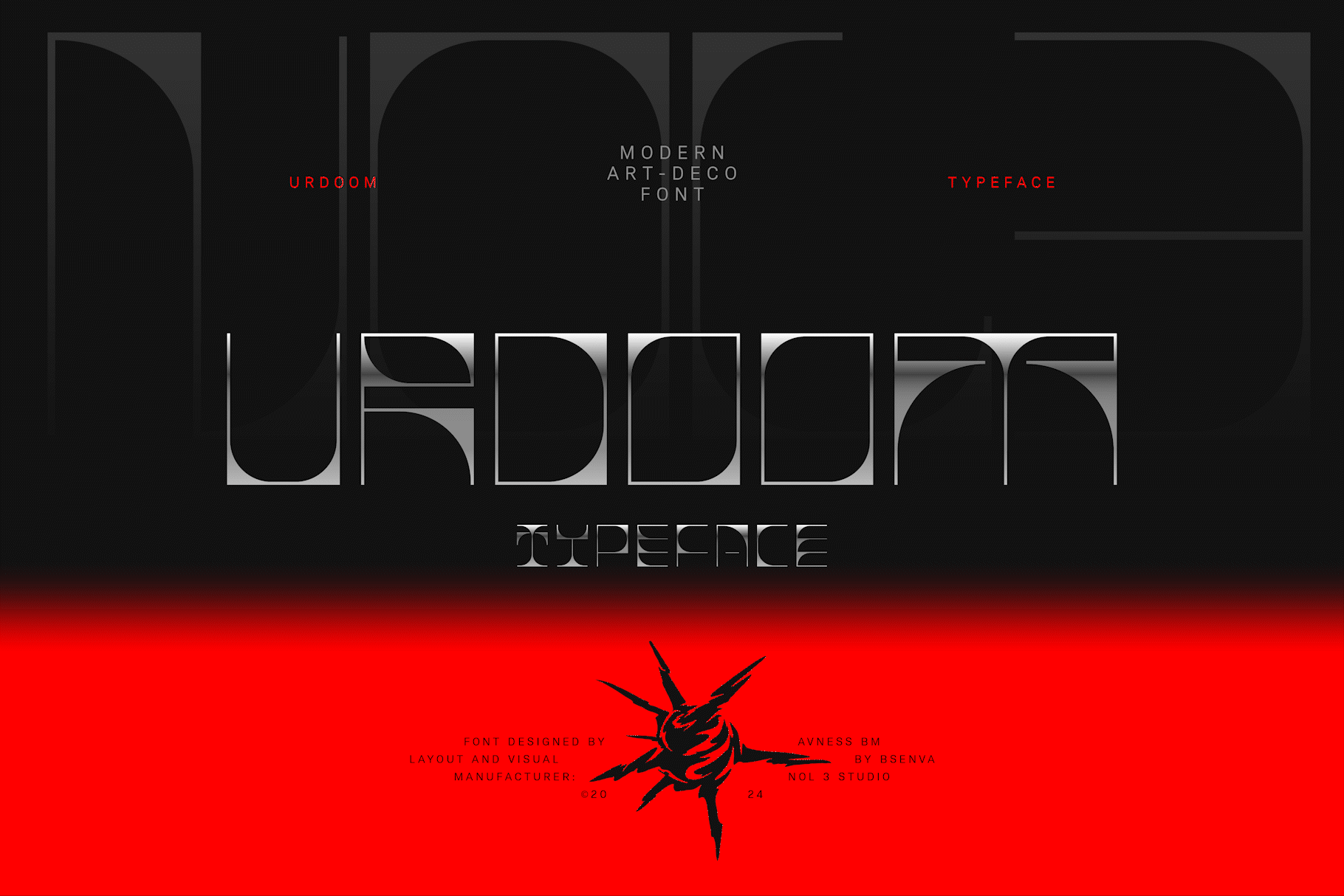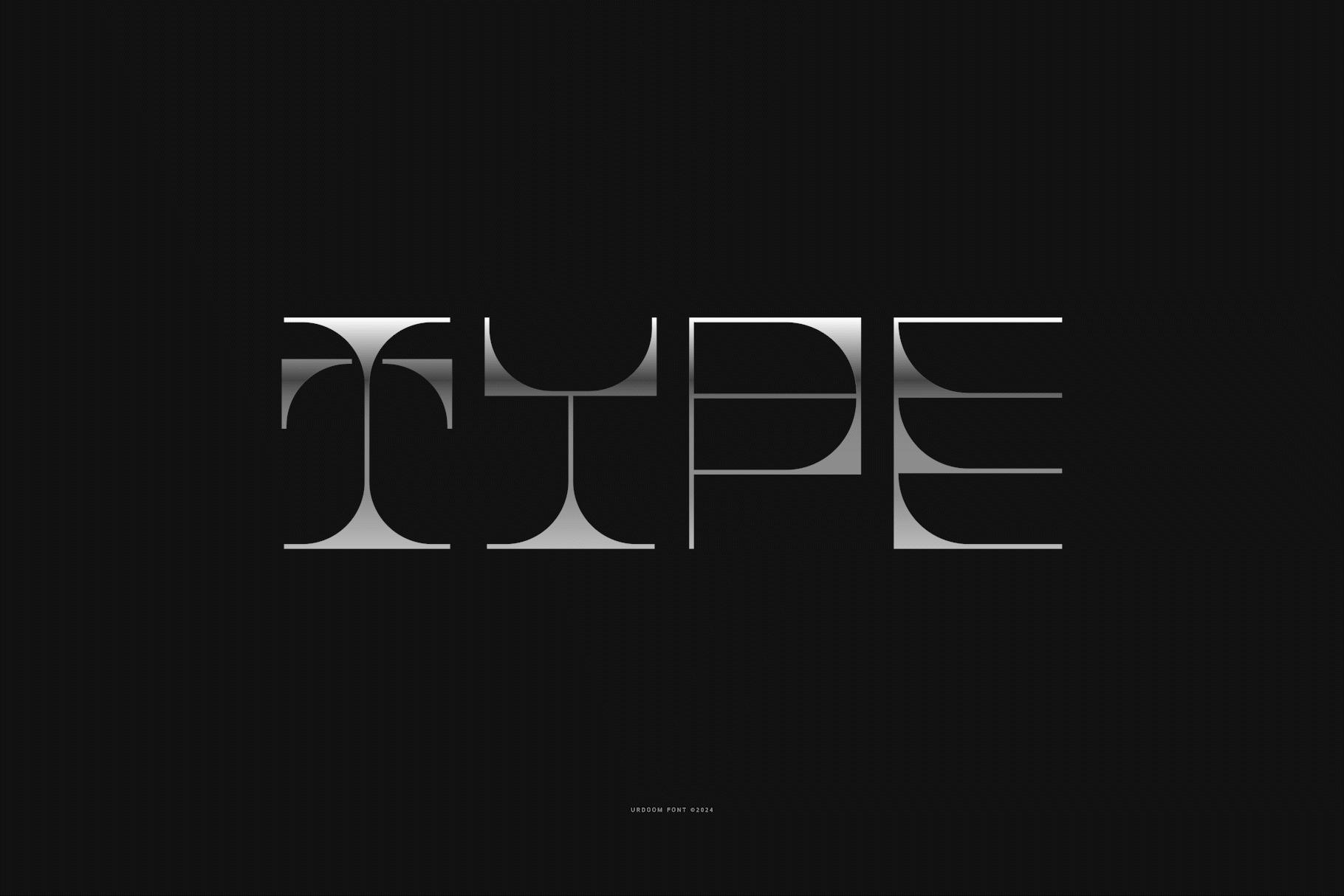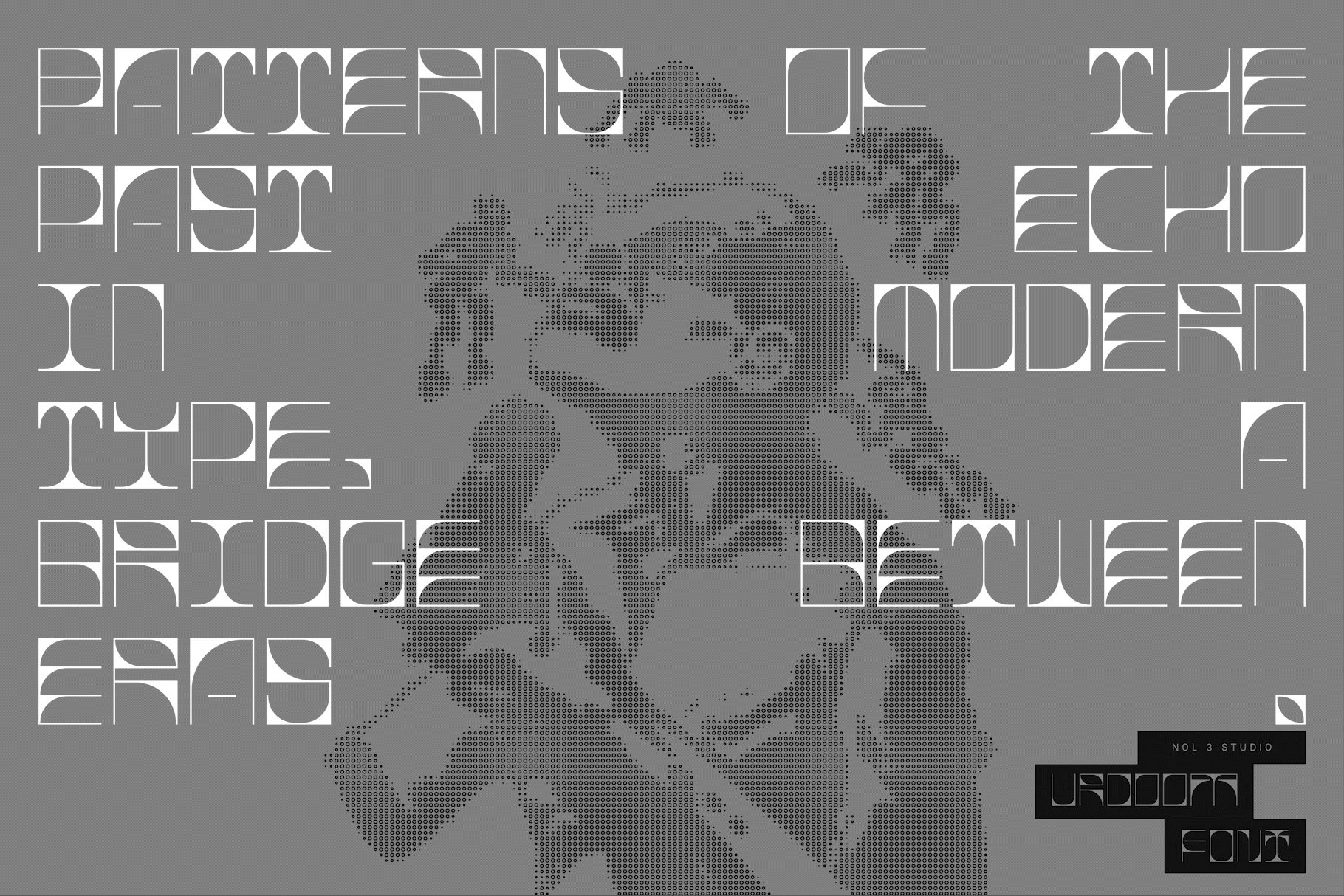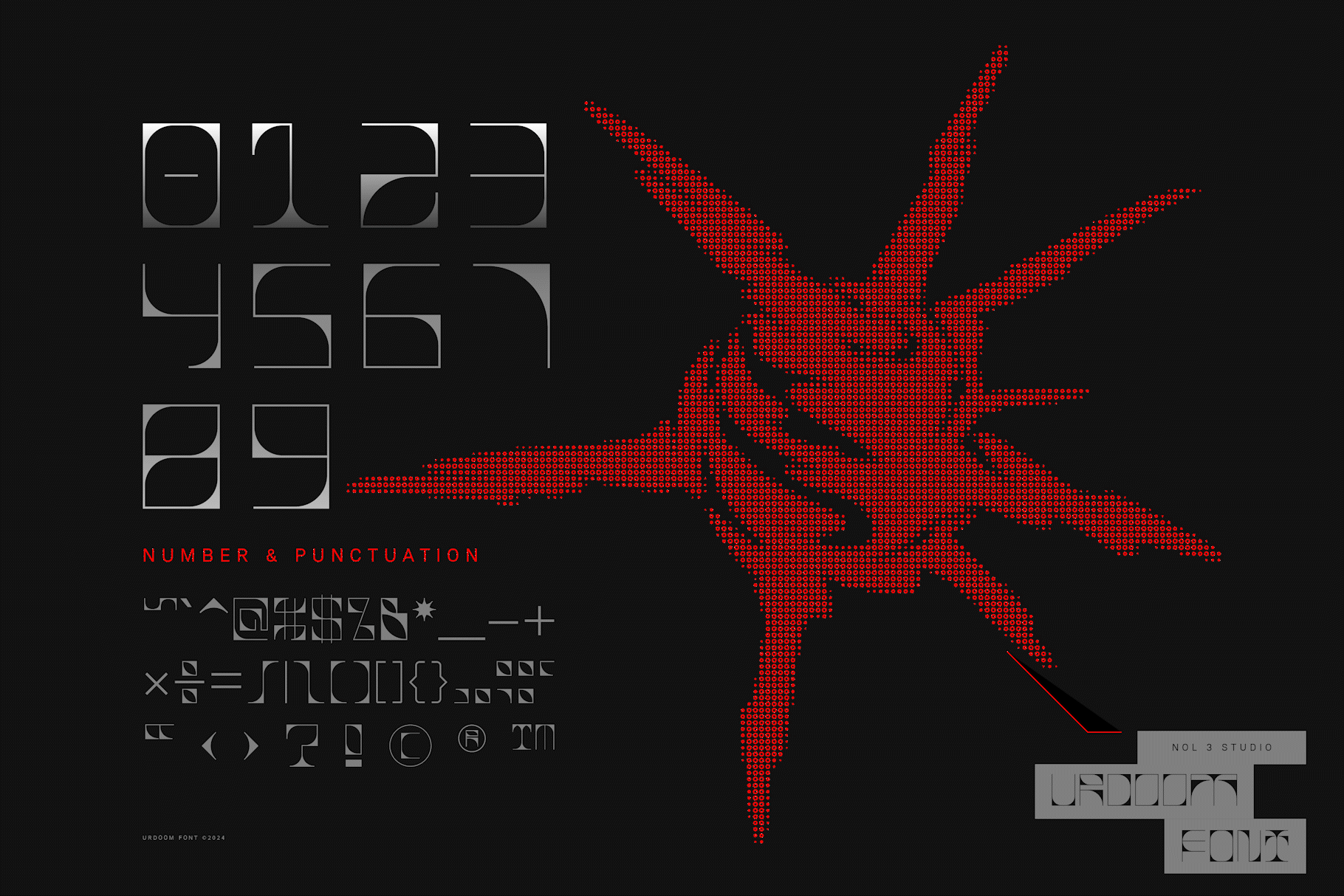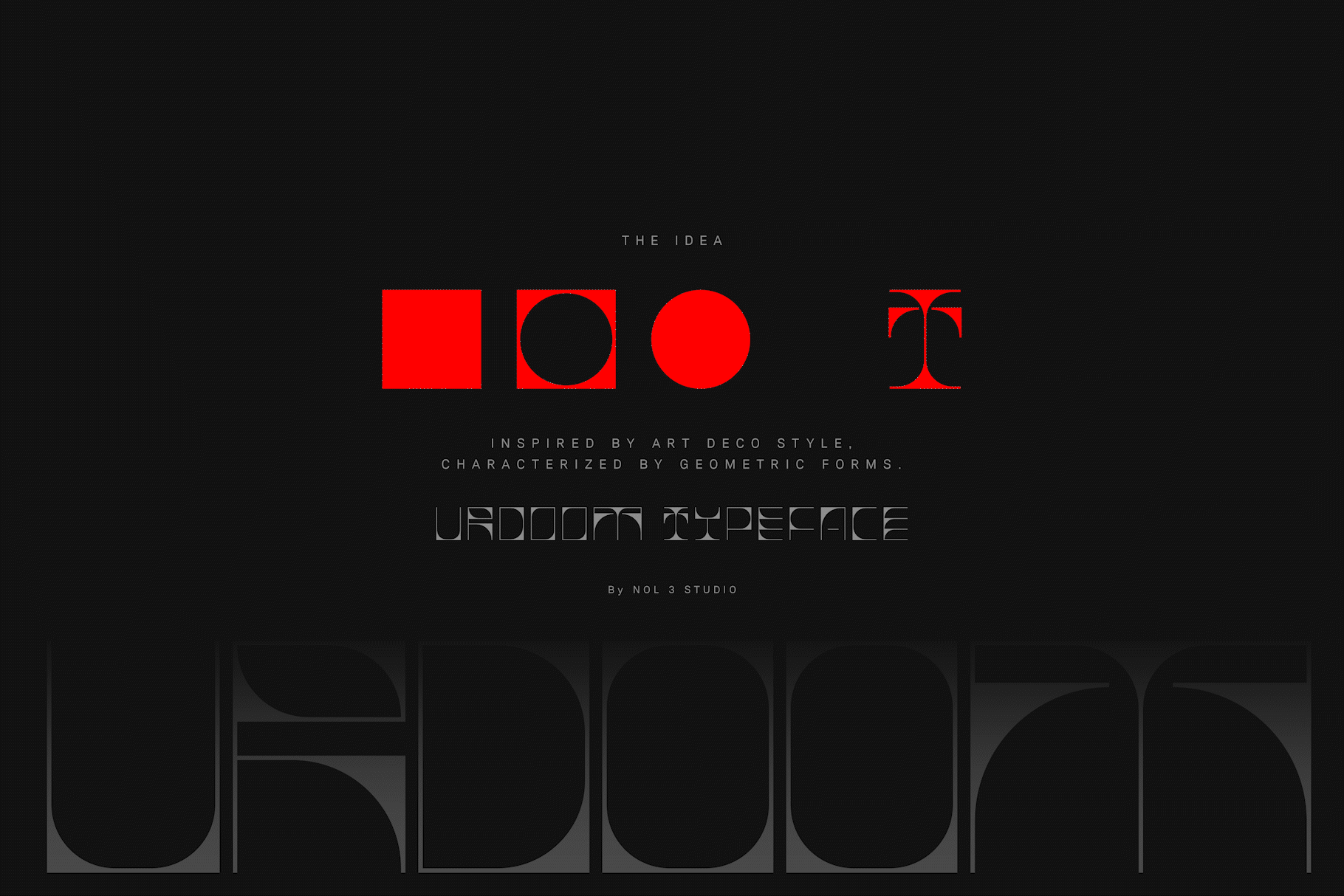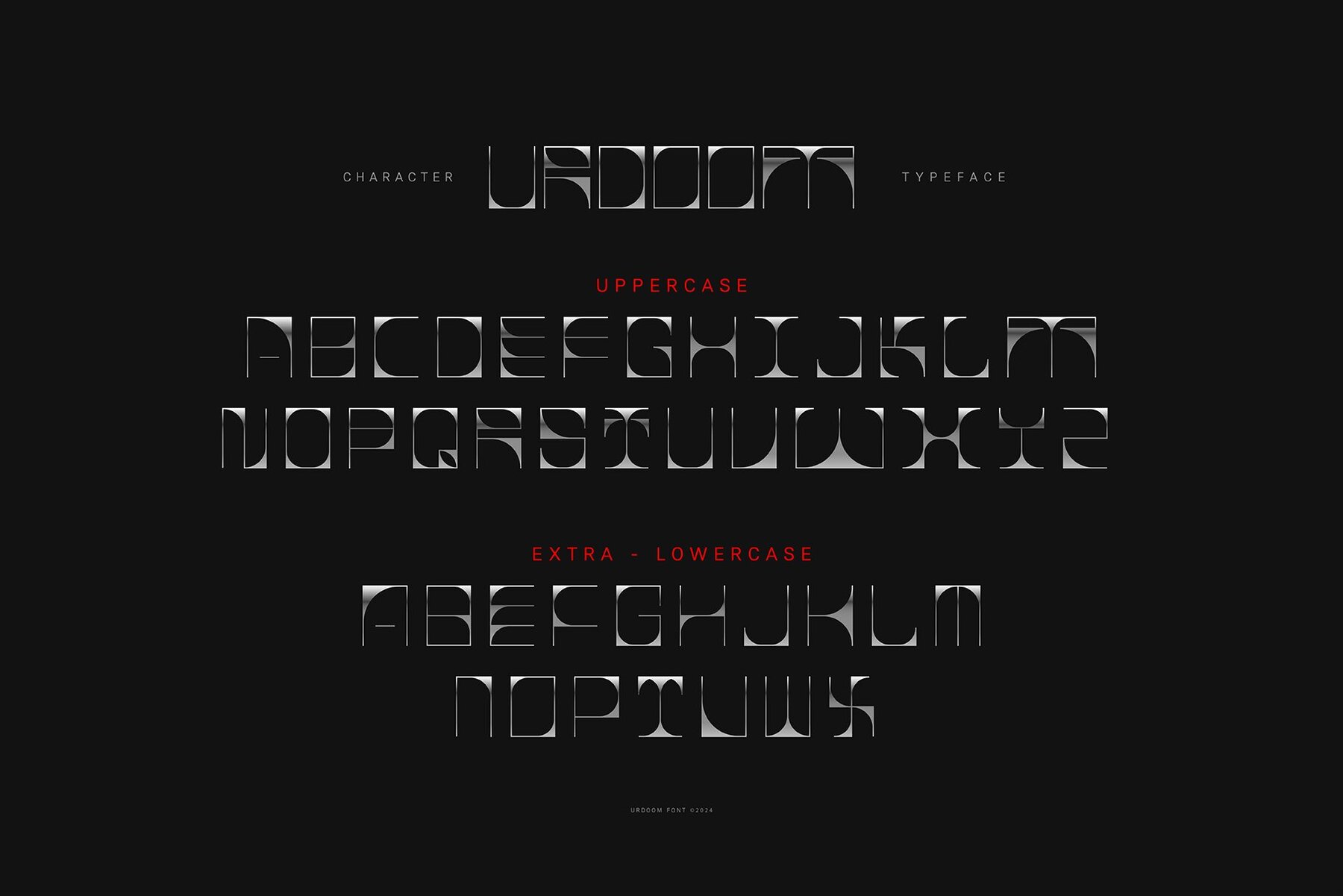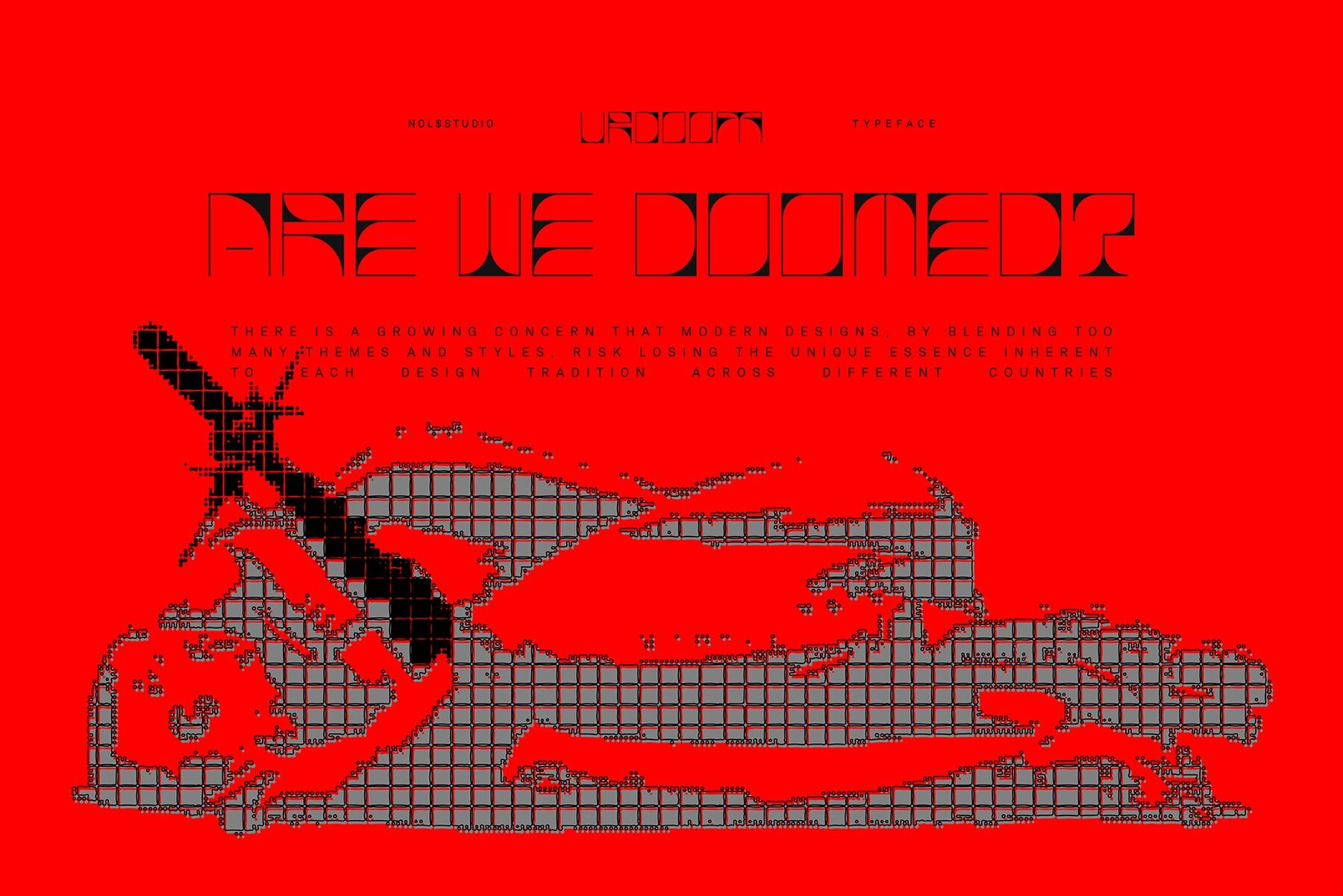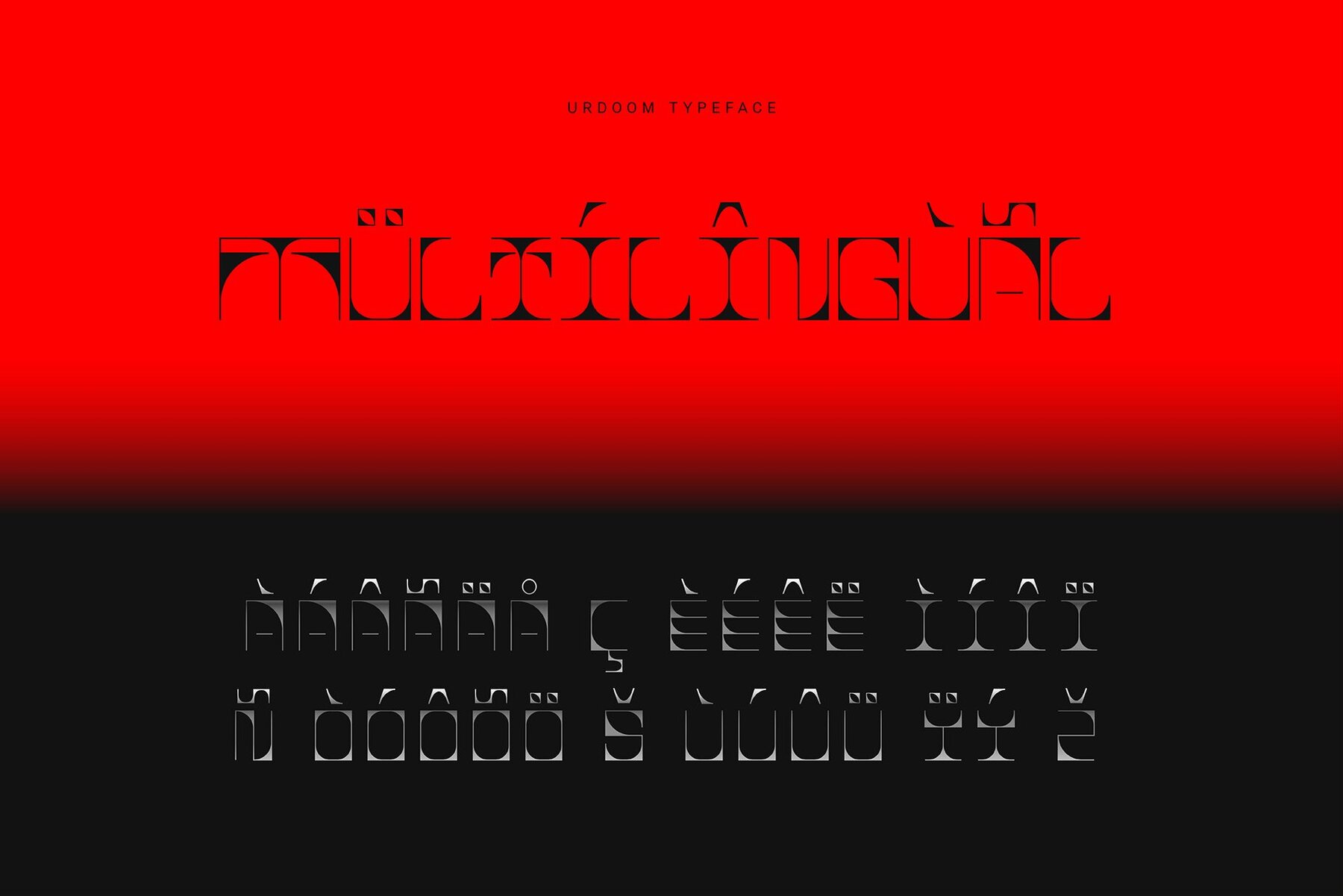
Urdoom Font
Urdoom Regular
Urdoom is a striking typeface drawing inspiration from the iconic art-deco style. This font is distinguished by its unique geometric qualities, offering both functionality and aesthetic appeal for a variety of design projects.
Key features of Urdoom include 200 carefully crafted glyphs, enabling diverse typographic expressions. It includes uppercase letters, additional lowercase characters, numbers, and punctuation. The multilingual support ensures that this font can be utilized across different languages, broadening its usability for global designers. Perfect for adding a retro flair to any project, Urdoom combines style with versatility.